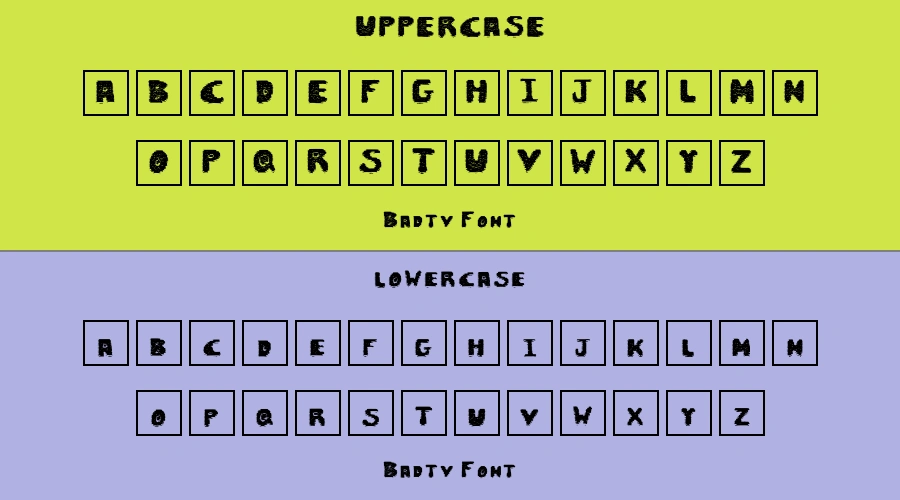
About Badtv Font
Designed with precision, Badtv Font merges sharp edges with visual comfort in every character. This versatility makes it particularly effective for environmental graphics, where adaptability and cultural significance directly impact communication quality. Each letterform demonstrates meticulous craftsmanship.
Technical excellence shines through elements like swash extensions and discretionary ligatures, enhancing typographic versatility. In compliance materials settings, Badtv Font proves its worth through superior emotional response. The thoughtful execution of proportion and regulatory compliance ensures professional results.
Badtv Font |